AUB students put Bree Arabic and Athelas Arabic to the test
A couple months ago, Veronika, Azza, and Rabab spent some time at American University of Beirut (AUB) for the Mashq conference. Besides presenting on type and design, Veronika judged a student assignment and Azza led an Arabic logo design workshop.
Azza’s workshop had the students take a well-known logo and create a matching Arabic logo. The students started by first deciding which Arabic script (Naskh, Kufi, etc.) most closely related to the original logo in style and intention. They then began a process of logo iterations to arrive at a final design that harmonised with the look and purpose of the original while respecting the expectations of an Arabic logo.
Veronika presented a lecture on TypeTogether’s key principles: collaboration, quality, community, diversity, and good karma. She included the role of the modern type foundry, the challenges faced by independent companies, and the possibilities that open up for collaboration in the fields of global typography, education, and new media. As an alumni of AUB, Rabab was a huge help with the conference and a great liaison among students, faculty, and TypeTogether
TypeTogether also collaborated with the Graphic Design department at AUB, specifically with professor Yara Khoury who gave the students a short assignment for their Publication course. The students were to produce a booklet using TypeTogether’s Arabic typefaces. They were free to choose the content themselves: anything from a personal story to a subject they are passionate about. The task was to show the qualities of the chosen typeface and its characters using color, size, weight, styles, cropping, hierarchy, graphic elements, etc.
The results were surprisingly elaborate and well considered for this short two-week assignment. Well done AUB students!
Veronika and the professors at AUB chose three winners: Nour Kaddour, Sana Bou Hamdan, and Zeina Houssari, who each created quite different booklets using Bree Arabic and Athelas Arabic.
The three winners with professors Yara Khoury and Greta Khoury.
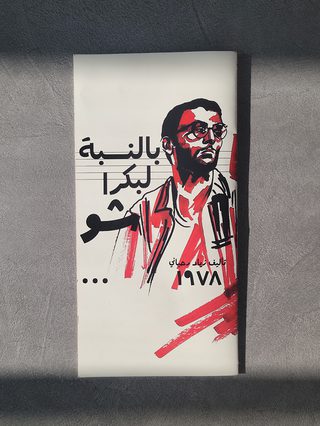
Publication design by Nour Kaddour.
From Nour Kaddour
Upon first glance, Bree Arabic reminded me of the lettering on the posters of old Arabic theatre and film. I thought that merging this face with the similar, illustrative style of these posters would result in something rhythmical, blurring the lines between type and the image. It only seemed natural to choose a musical by the iconic Lebanese composer and playwright, Ziad al Rahbani.
As for the design concept, I wanted to represent Bree in all its formal glory to create a musical composition that conveys the mood of the play via elongations of syllables, reprises of text treatment, and strong visuals. Finally, I ended with a Bree Arabic cast line-up — a final goodbye before the curtain closes — hopefully leaving my audience shouting “encore!”
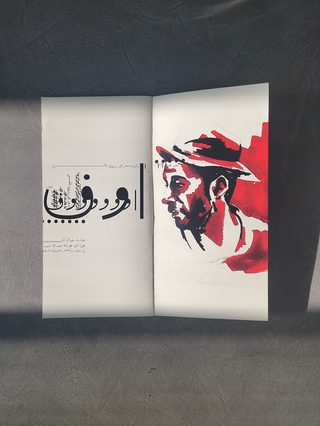
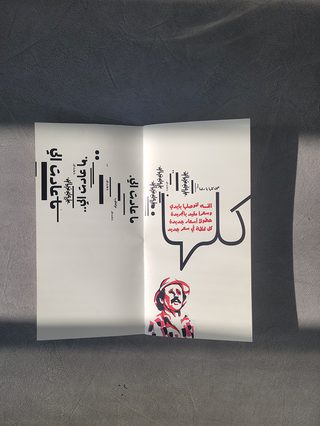
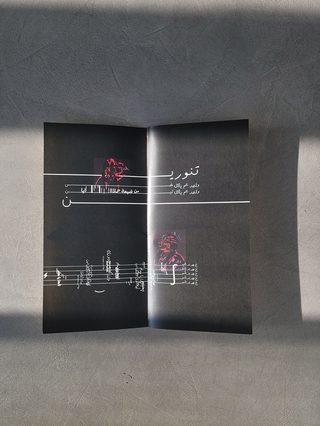
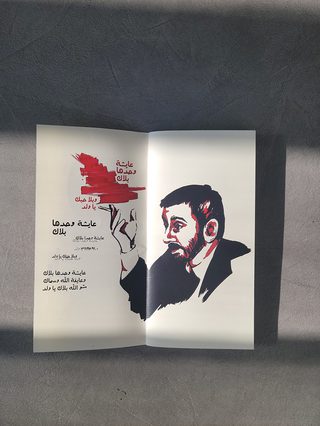
Publication design by Sana Bou Hamdan.
From Sana Bou Hamdan
Bree Arabic is a fun and experimental typeface; its circular, geometric form gives it a hand-drawn feeling. It instantly reminded me of how it would be fun to design and create a joke book introducing the font. And what’s better than “Abou Abed Jokes”.
The type specimen contains nine jokes, and each spread refers to one joke, treated differently from the other. Yet they all revolve around the same concept of taking the quirkiness of bold weights and enlarging the letters or keywords to give a three-dimensional aspect to the page, each followed by the joke in the center. It is a full typographic type specimen where some spreads introduce images for nostalgic or aesthetic purposes to fit the joke.
The typeface Bree Arabic has a strong impact as a display font and it is rather an interesting and entertaining font, taking into consideration the forms that the typeface produces once enlarged, creating a variety of experimental posters.
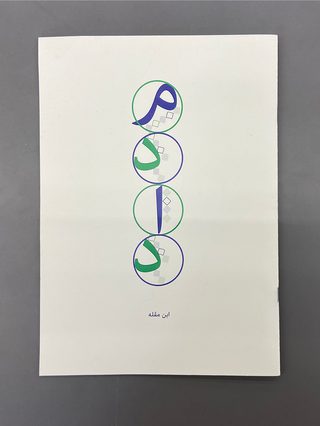
Publication design by Zeina Houssari.
From Zeina Houssari
The Athelas Arabic typeface is perfect for Arabic’s graceful aesthetic qualities. I was really inspired by its natural and delicate details to tackle Ibn Muqlah’s legacy in building the basis of the Arabic script. In the process of brainstorming for Midad, I dove into ancient manuscripts, which I was really influenced by, to get the feel of the primitive Arabic scripts, because I felt that it would highlight Athelas’s intricate qualities. From Ibn Sina to ancient Quran, all those small details in the manuscripts were fascinating to me. Therefore, I reinterpreted the exquisite manuscripts into Ibn Muqlah’s revolutionary teachings.
The specimen covers Ibn Muqlah’s three principles, the black ink, the calligraphy pen, the arabic letterforms, the diacritcs, the arabic letters dots, the different type of scripts, and rules for a calligrapher.
Results of the TypeTogether assignment by the other AUB students taking part in the Editorial Design course led by teachers Yara Khoury and Greta Khoury.
Bree Arabic poster in Mashq conference goodie bag.